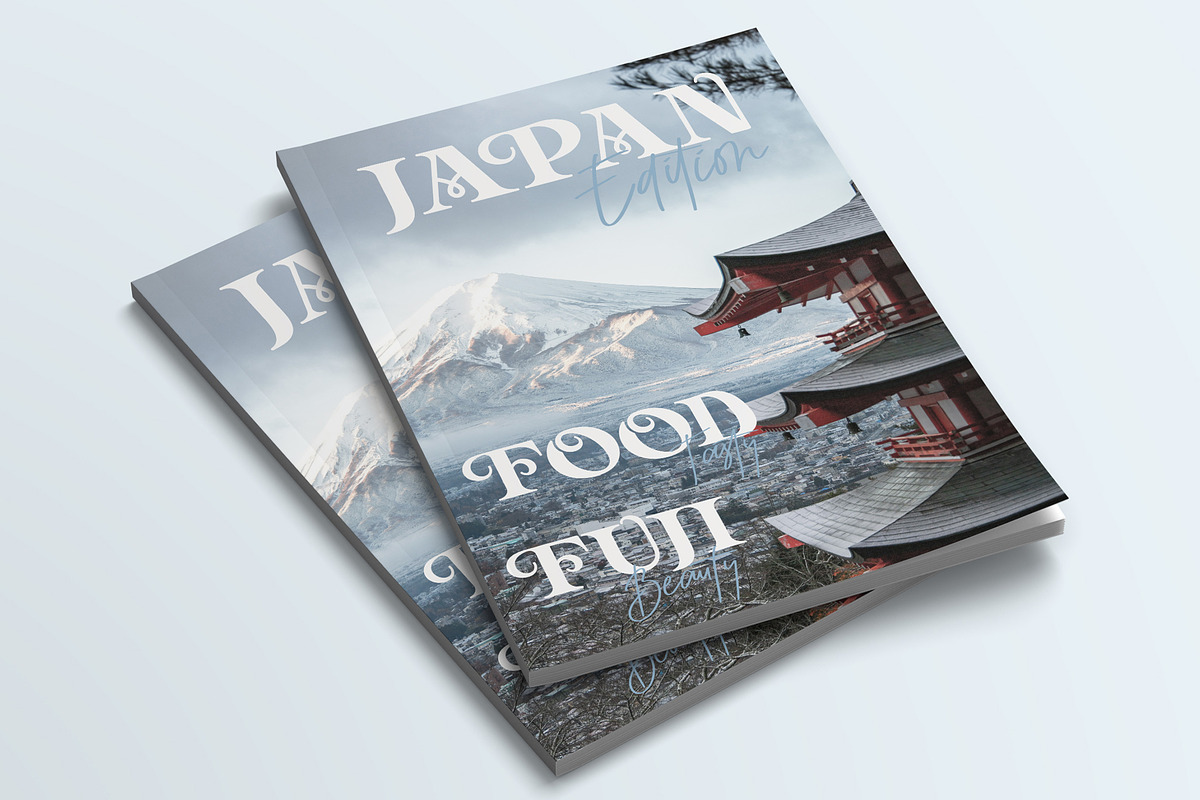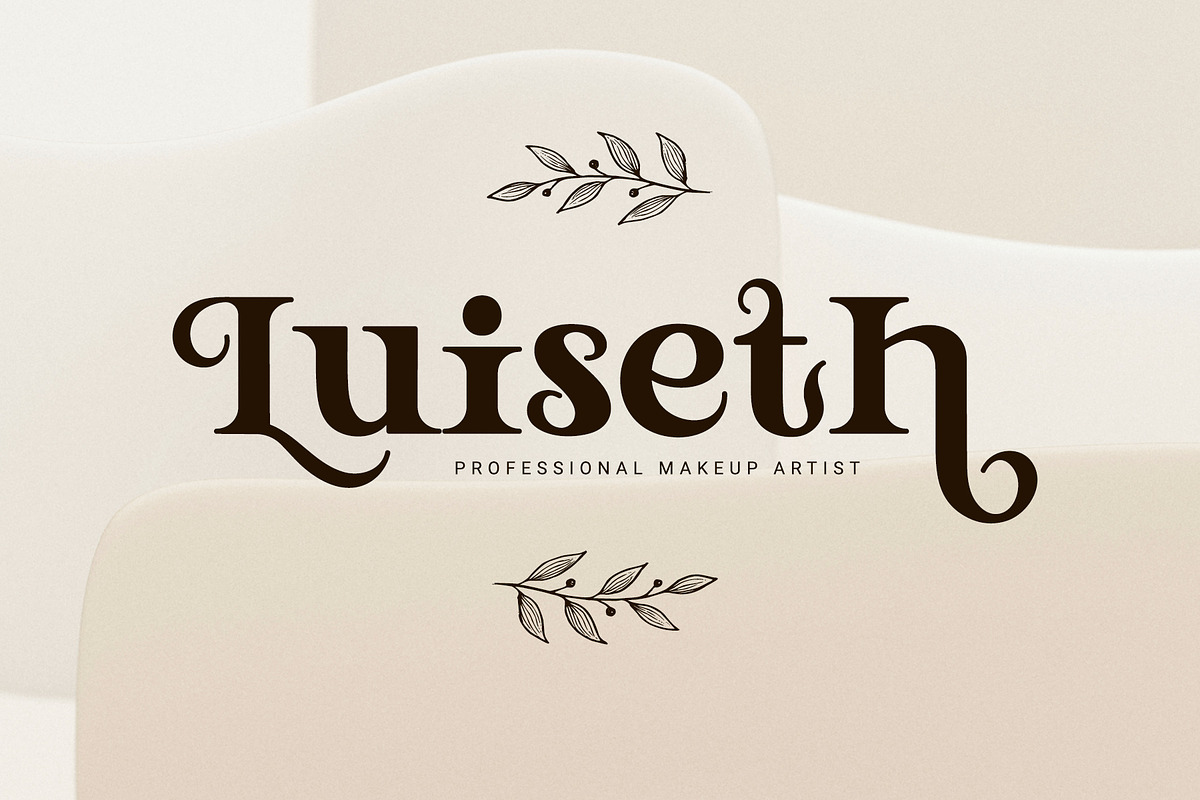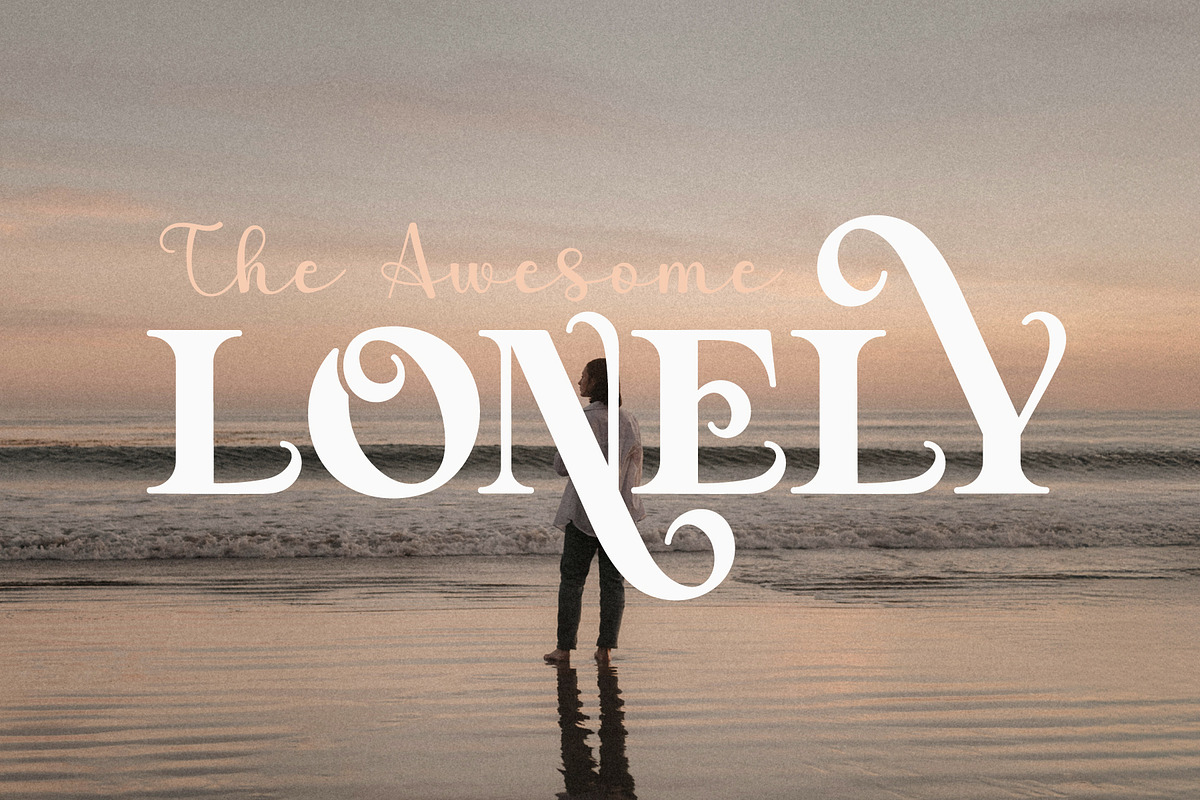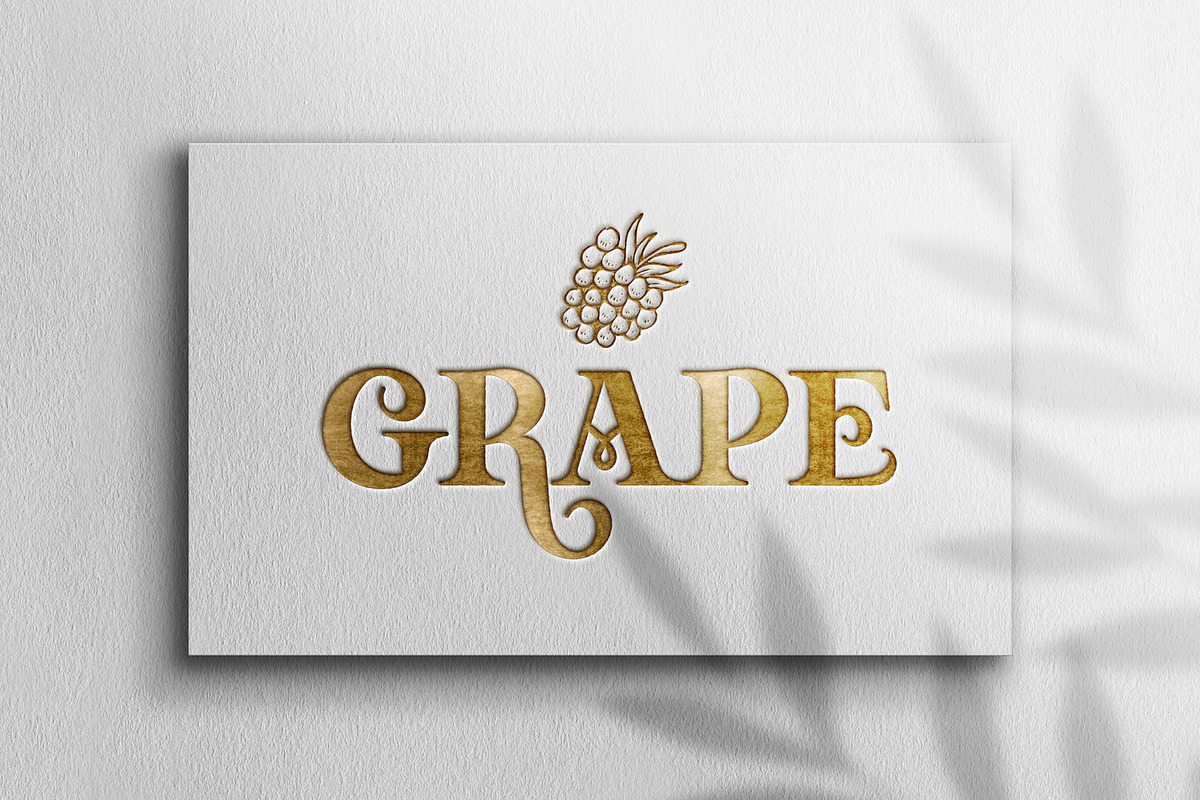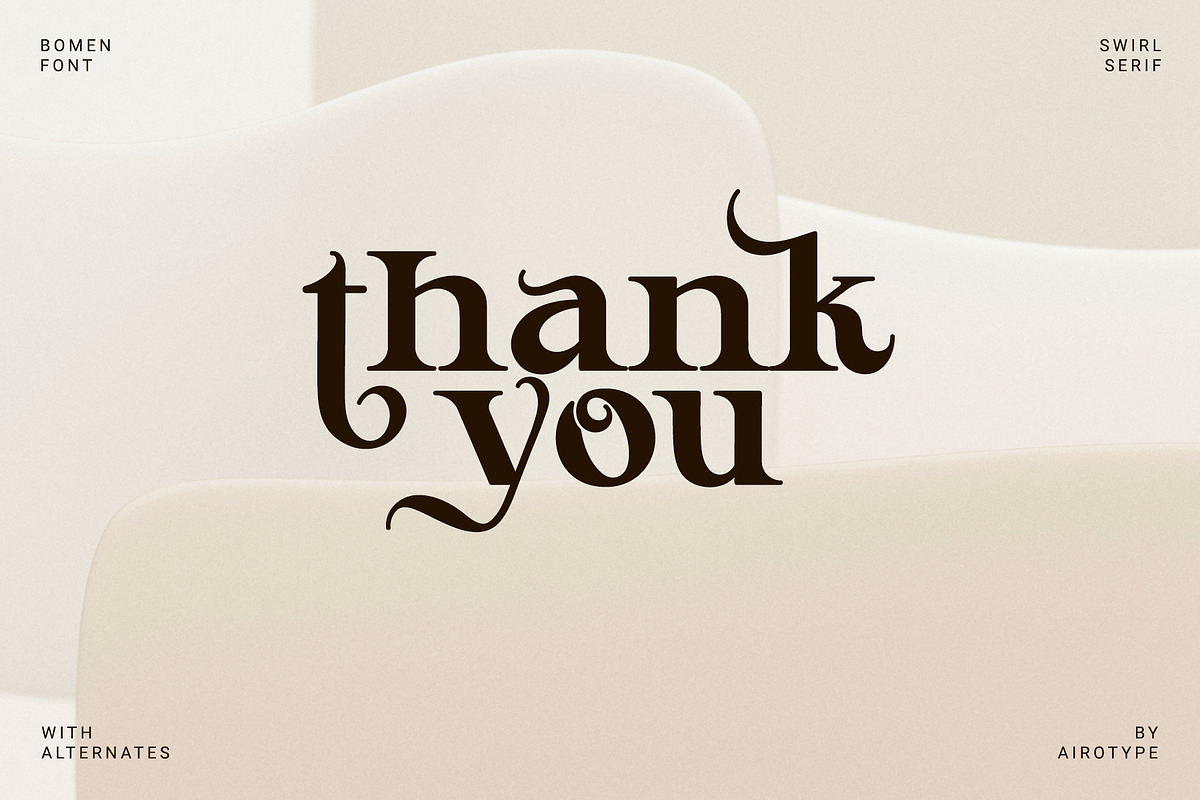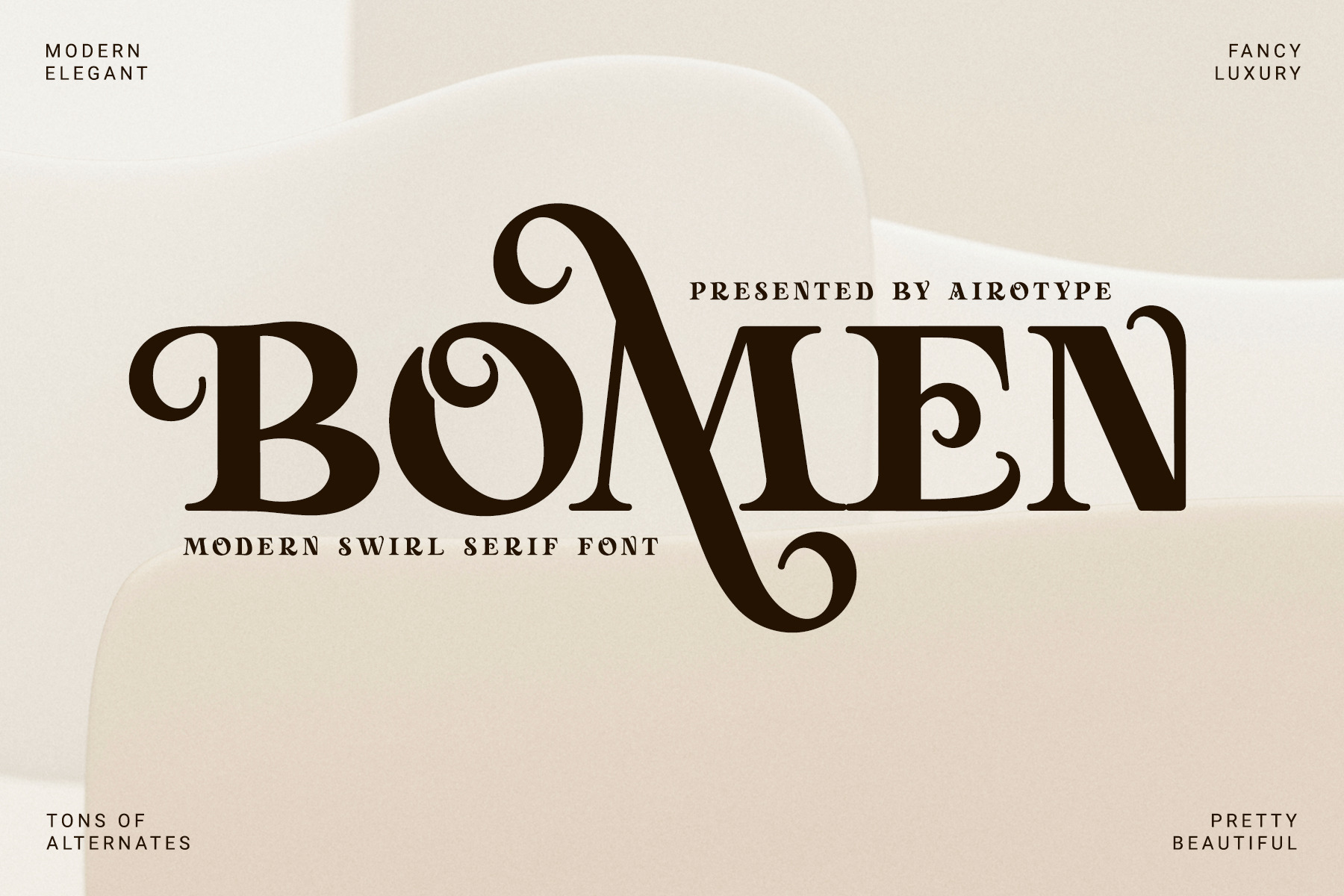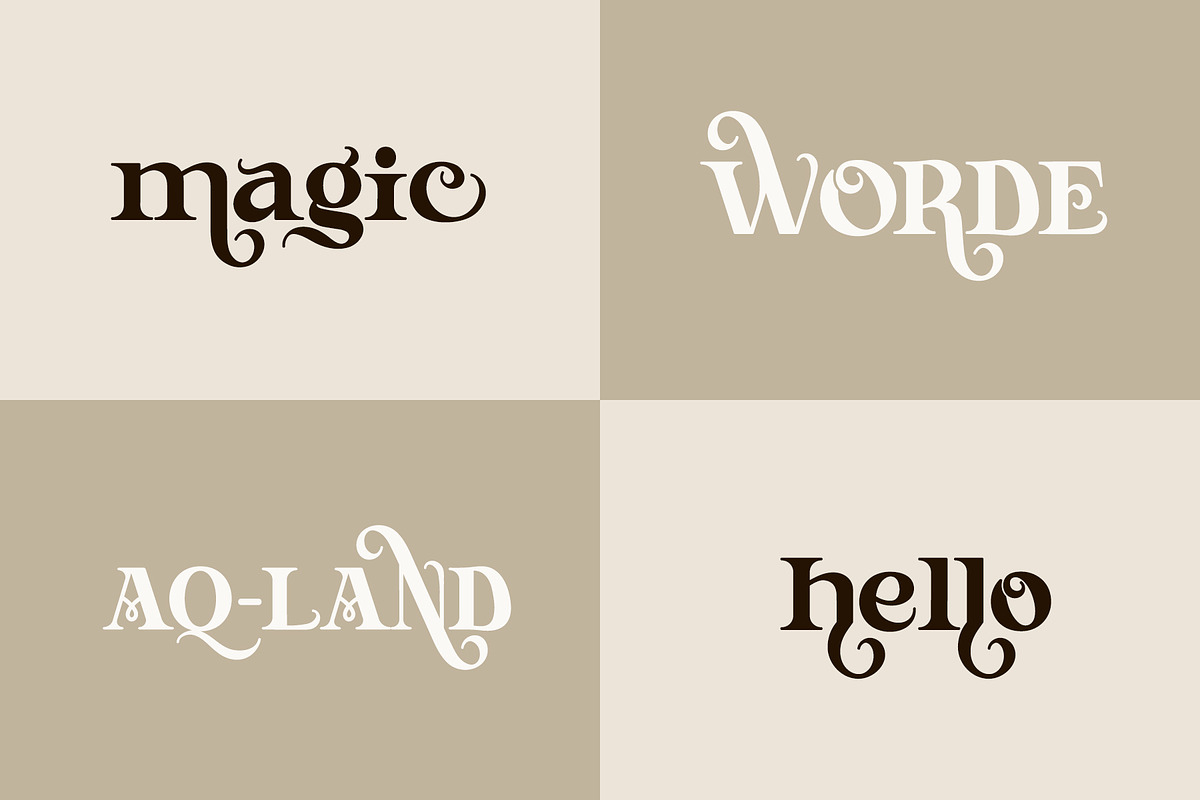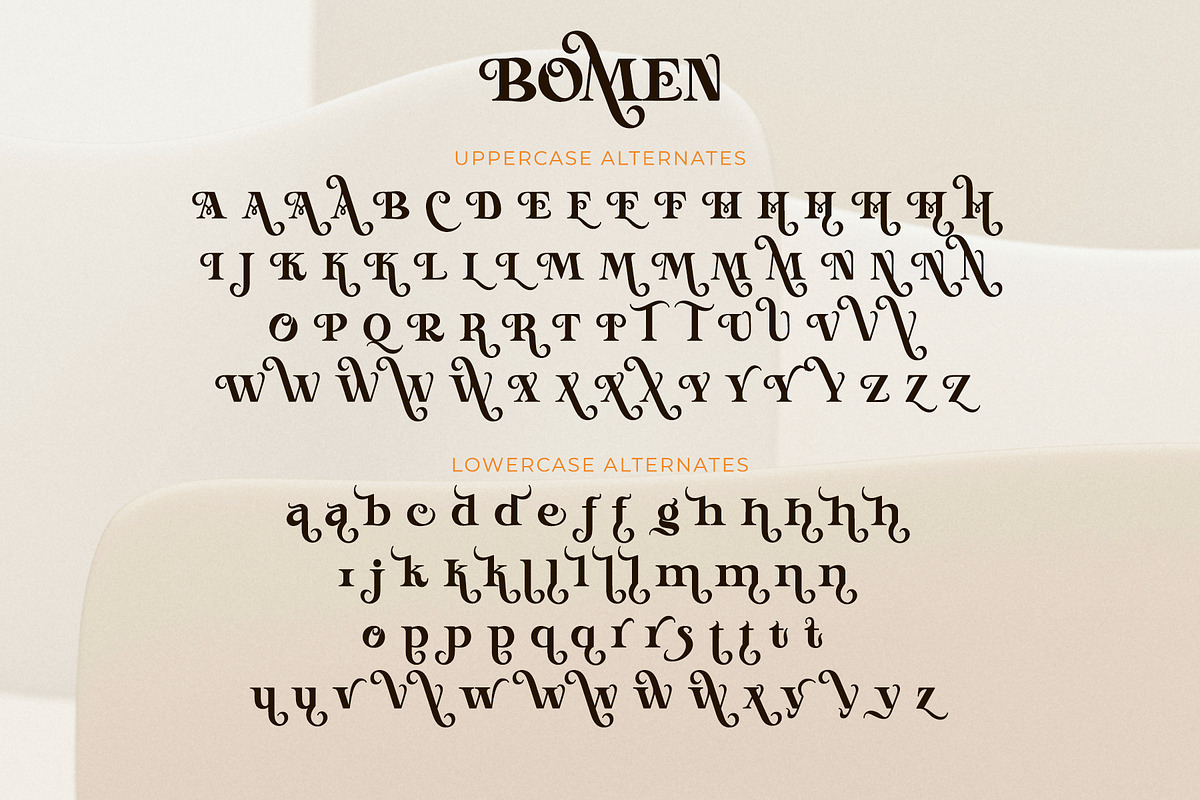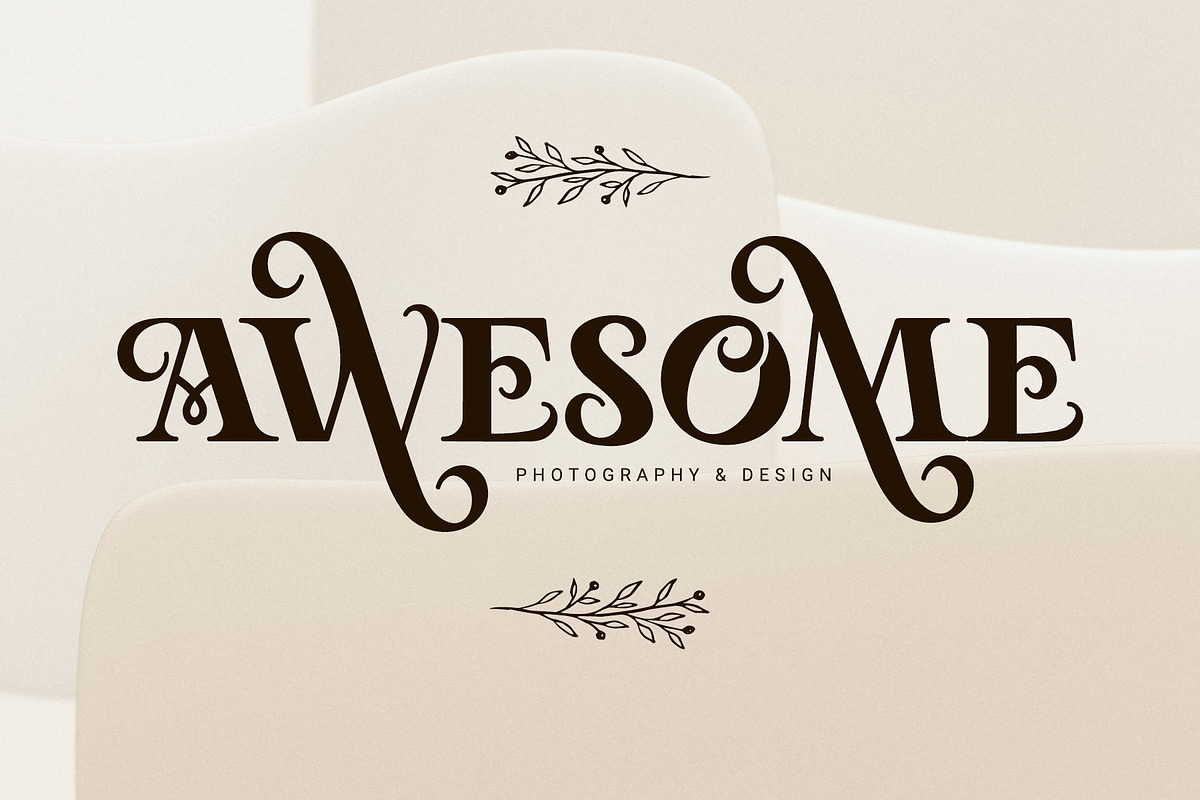
Bomen - Modern Elegant Serif Font
Bomen is modern and elegant serif font. It combines elegance and classic, with edgy and beautiful looks.
Bomen is pretty elegant font for any projects with modern vintage touch, such as logo, crafting, wedding invitation, branding, signage, sticker, sublimation, quotes, and others.